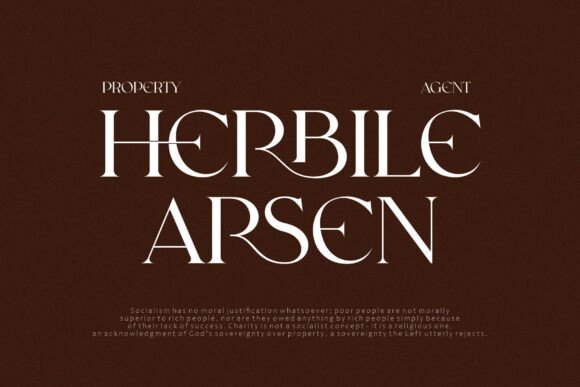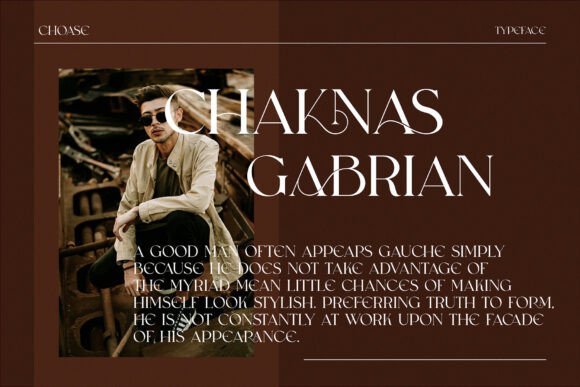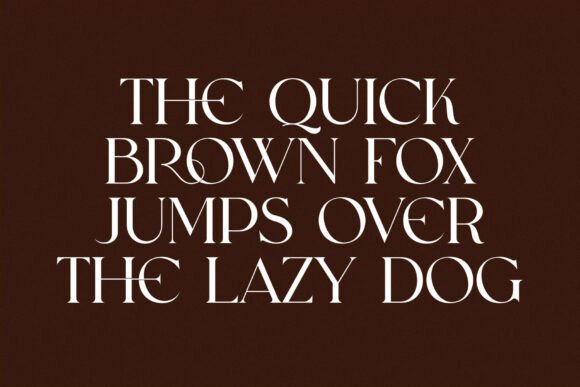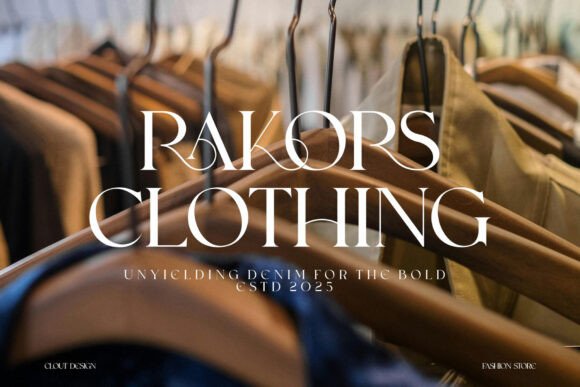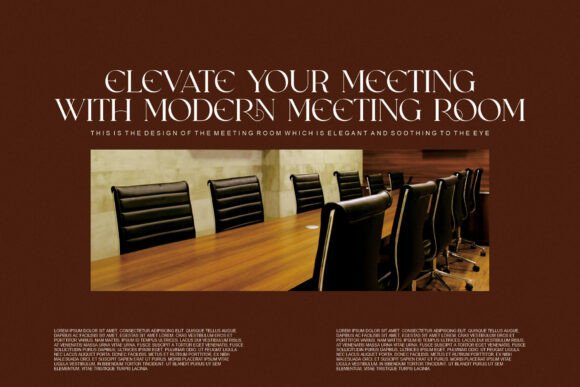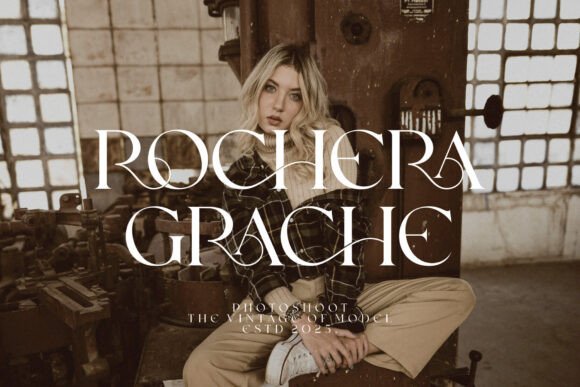
Introducing Choase: The Elegant Ligature Serif Font for Sophisticated Designs
In the world of typography, a font can make or break a design. For those seeking a typeface that exudes elegance, sophistication, and a touch of modernity, Choase is an exceptional choice. This beautiful ligature serif font is designed to evoke the freshness of blooming flowers and the timeless allure of classic elegance. With its unique blend of bold yet refined ligatures, Choase is perfect for upscale designs in florals, fashion, high-end branding, and more.
The Beauty of Ligatures: A Distinctive Feature of Choase
Ligatures are a typographic feature where two or more letters are connected to form a single glyph. This design element not only adds a touch of sophistication to a font but also enhances readability. In Choase, ligatures are a defining characteristic, offering a bold yet refined aesthetic that sets it apart from other serif fonts. The ligatures in Choase are designed to add a fluid, graceful feel to text, making it perfect for designs where elegance is paramount.
A Modern Twist on Classic Elegance
Choase seamlessly blends the charm of classic serif styles with a modern twist. The font’s soft and graceful presence ensures that every letter feels intentional, elevating any project it is used in. This balance of traditional and contemporary design elements makes Choase versatile and suitable for a wide range of applications, from high-end branding and fashion to floral designs and luxury packaging.
Perfect for Upscale Designs
Whether you’re working on a luxury brand’s identity, a high-fashion magazine, or an elegant floral arrangement website, Choase is the perfect choice. Its sophisticated and feminine aesthetic ensures that your design stands out, conveying a sense of elegance and refinement. The font’s ability to pair classic styles with modern sensibilities makes it an invaluable asset for designers aiming to create visually stunning and memorable designs.
Key Features of Choase
- Elegant Ligature Serif Design: Offers a sophisticated and unique look with its ligatures.
- Modern Twist: Combines classic serif elegance with contemporary design elements.
- Sophisticated and Feminine: Ideal for designs requiring an elegant and refined aesthetic.
- Versatile: Suitable for a wide range of upscale designs, including florals, fashion, and high-end branding.
- Soft and Graceful Presence: Ensures every letter feels intentional and contributes to a cohesive design.
Why Choose Choase for Your Design Projects?
Choosing the right font for a design project can be daunting, but with Choase, designers and crafters have an exceptional option that combines elegance, sophistication, and modernity. Here are a few reasons why Choase should be at the top of your font considerations:
- Enhances Readability: The ligatures and clear design of Choase improve text readability, making it functional as well as beautiful.
- Unique Aesthetic: Offers a distinctive look that can help your design stand out in a crowded marketplace.
- Versatility: Can be used across various design projects, from digital platforms to print materials.
- Elegance: Brings a level of sophistication and refinement to any design, ensuring it meets the highest standards.
Choase is more than just a font; it’s a design statement. With its elegant ligature serif design, modern twist on classic elegance, and versatile application, Choase is poised to become a favorite among designers and crafters seeking to elevate their projects. Whether you’re aiming to create a luxurious brand identity, a stunning fashion editorial, or a beautiful floral design, Choase offers the perfect blend of sophistication and modernity. Discover the beauty and elegance of Choase and take your designs to new heights of refinement and style.